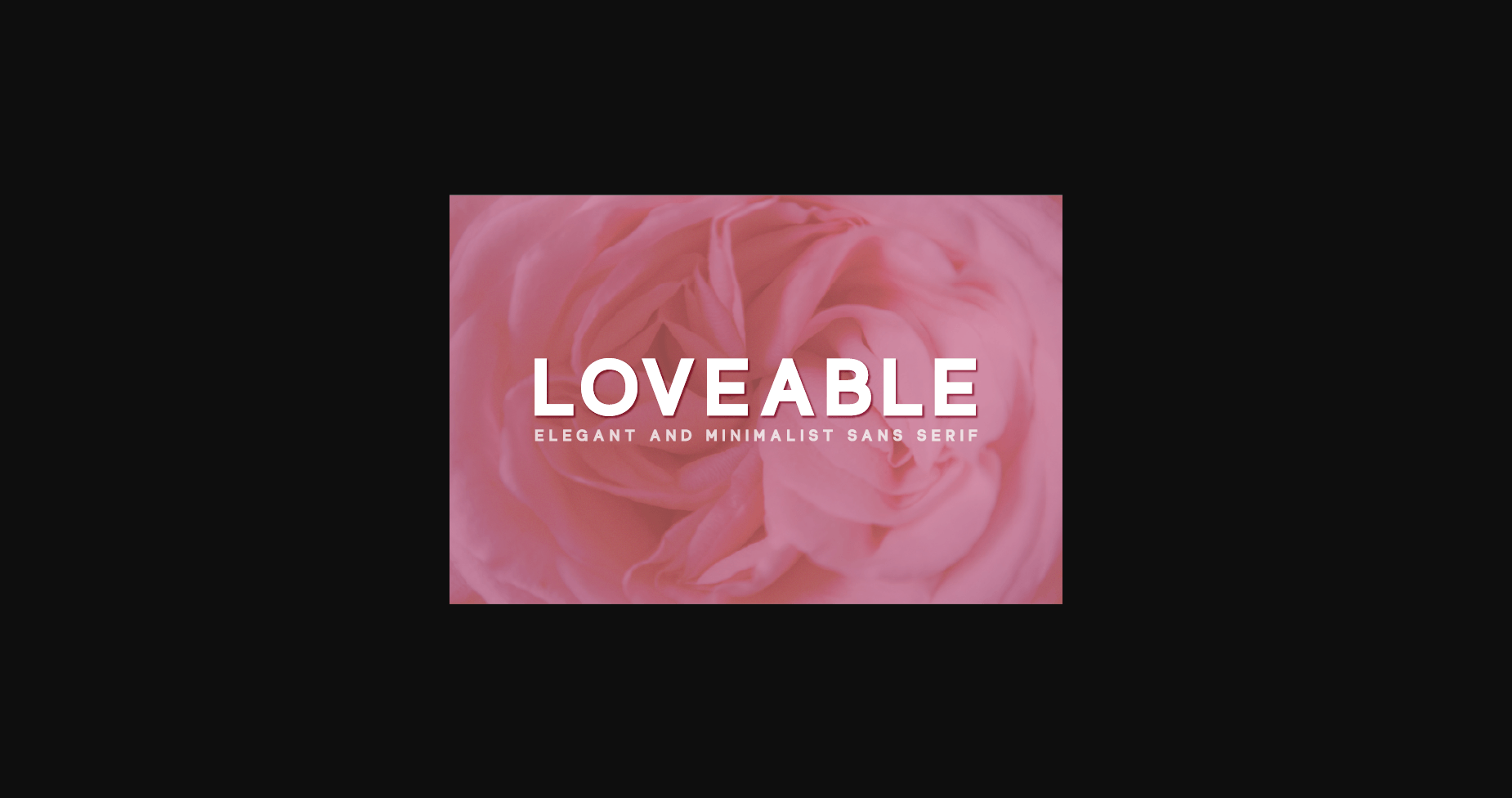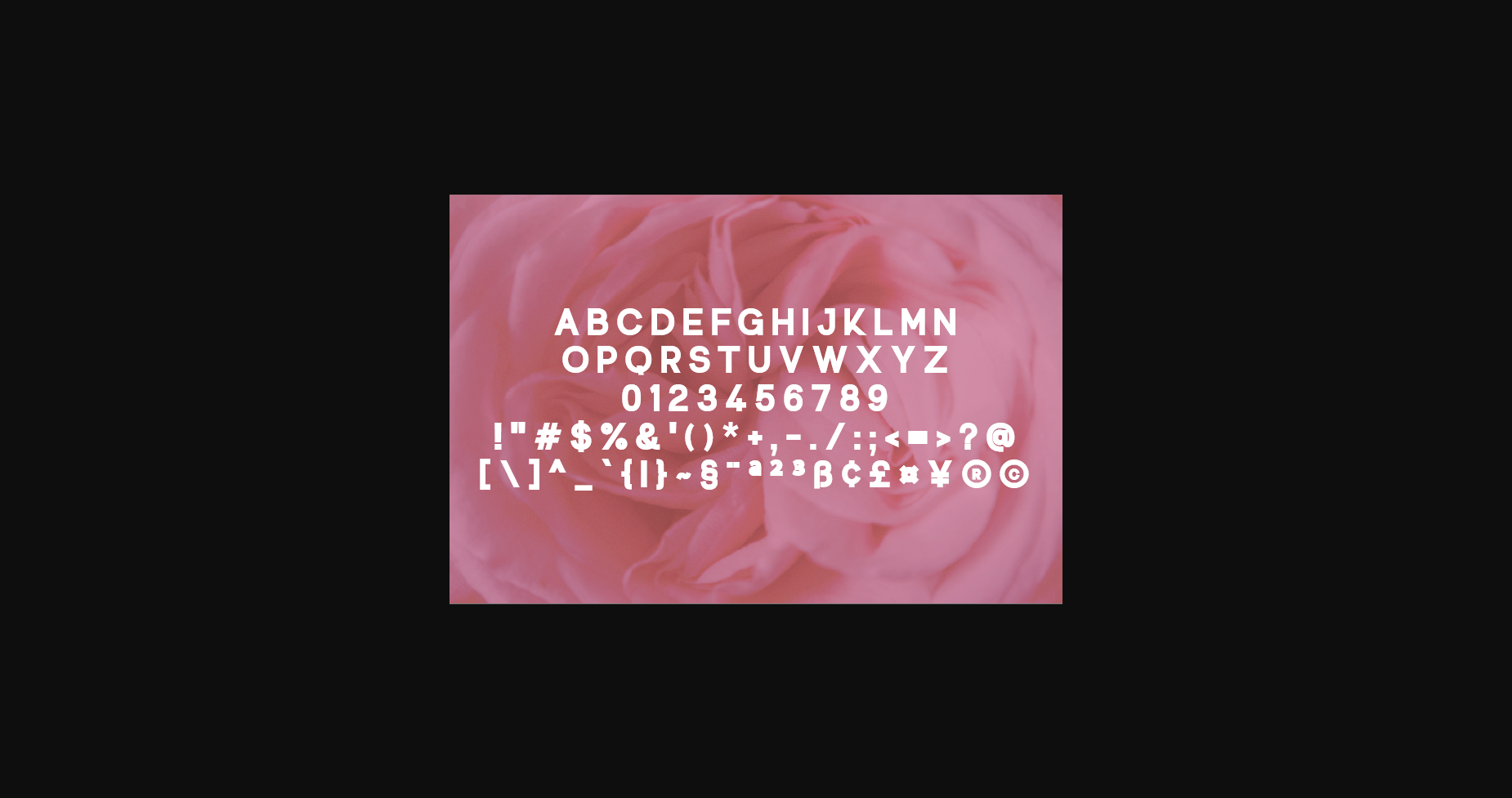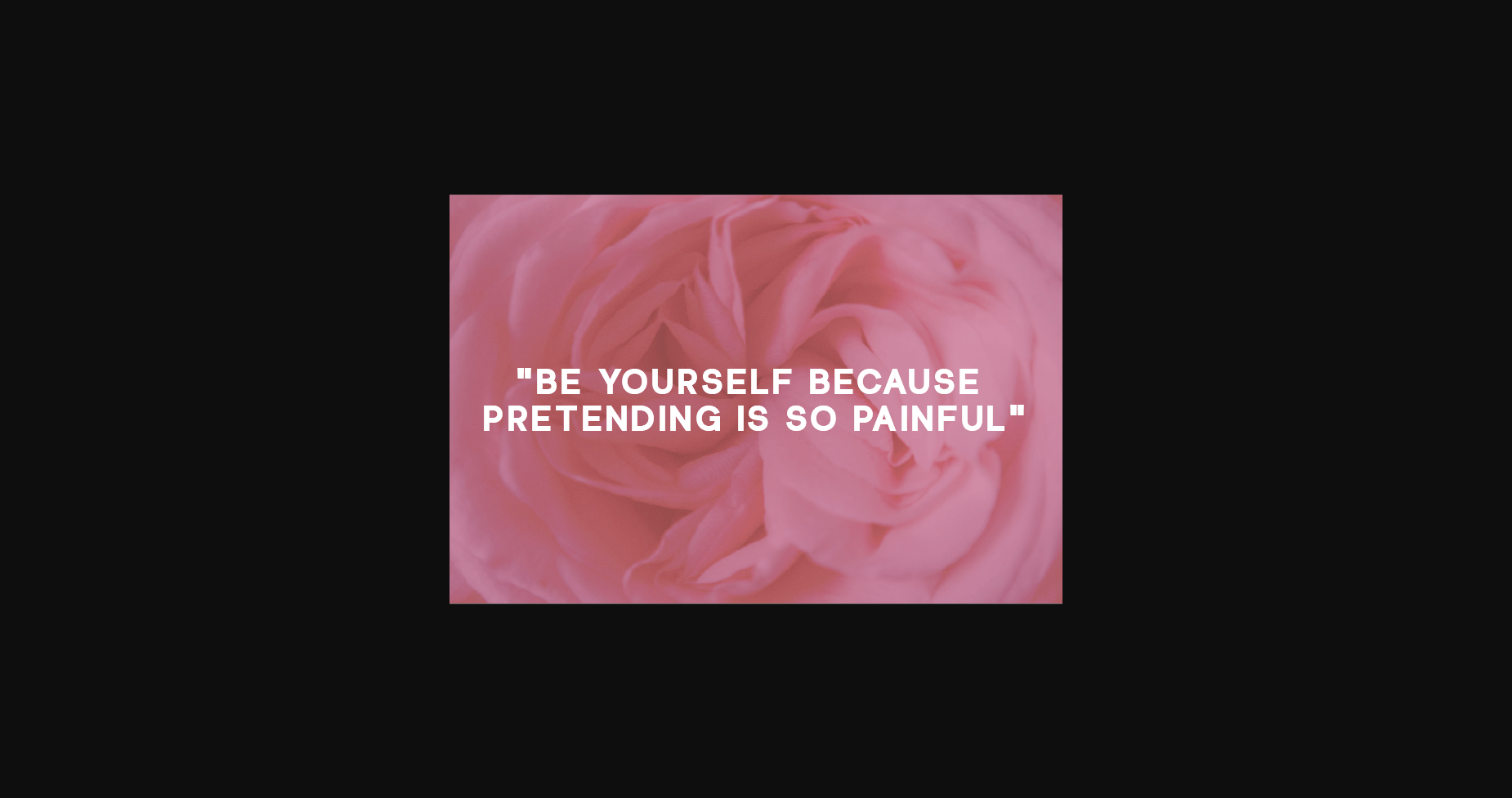
About Loveable Font
Loveable is a cool sans serif font that is versatile and looks great in just about any context. With smooth and clean lines and just a touch of contrast, Loveable works beautifully for logos, branding, and web headings.